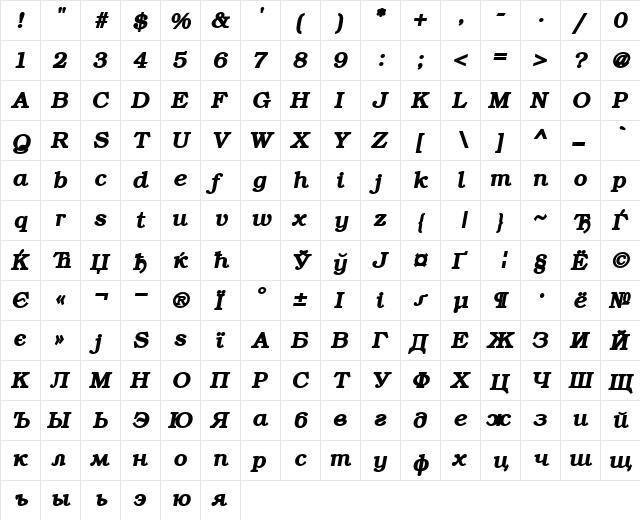
ER Bukinist 1251 Bold Italic Font Preview
Design Context for ER Bukinist 1251 Typeface
ER Bukinist 1251 takes a measured approach to typography — its balanced proportions and neutral character make it a reliable workhorse for both digital and print work. Its italic angle brings a sense of urgency and motion to the letterforms. The heavy weight commands attention and anchors typographic hierarchies.
Pro Tip: Try ER Bukinist 1251 for annotation and caption copy alongside an upright companion — the contrast in angle creates a dynamic but ordered typographic system.